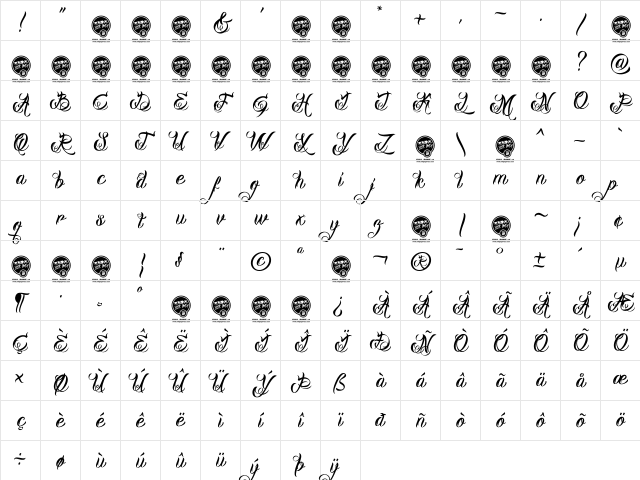
DHF Milestone Script Demo Regular Free Font
DHF Milestone Script Demo Regular
Foundry: Dexsar Harry Fonts (DHF)
Designer: Dexsar Harry Anugrah
Design Context for DHF Milestone Script Demo
DHF Milestone Script Demo flows with the natural rhythm of handwritten lettering, making it ideal for designs that call for warmth and personal expression.